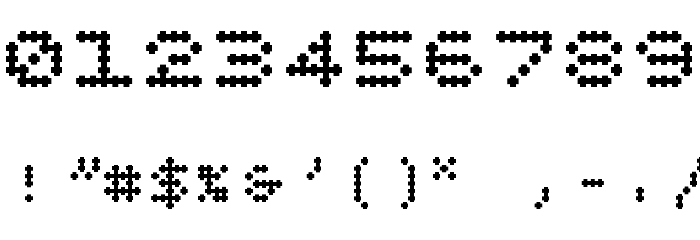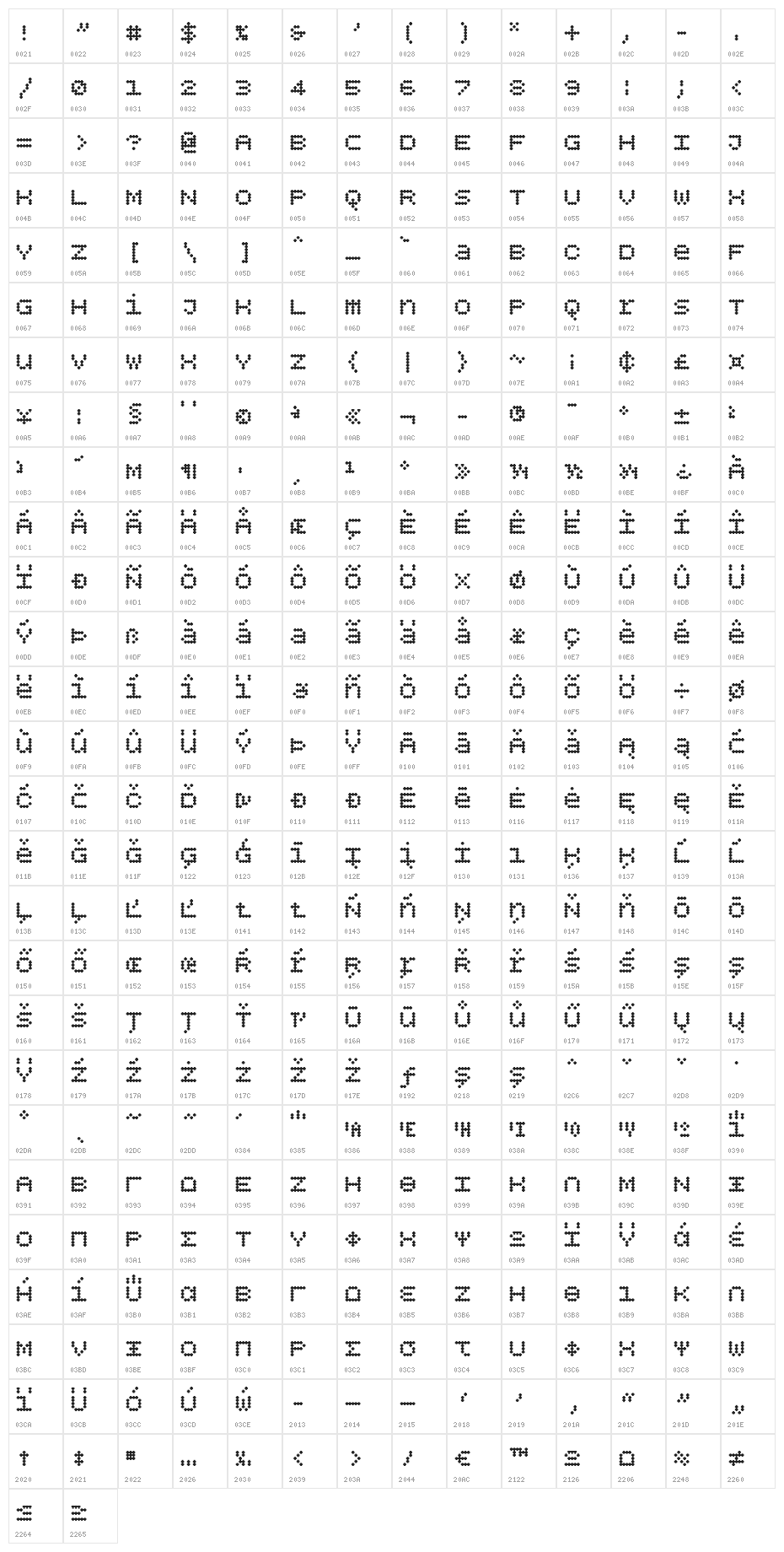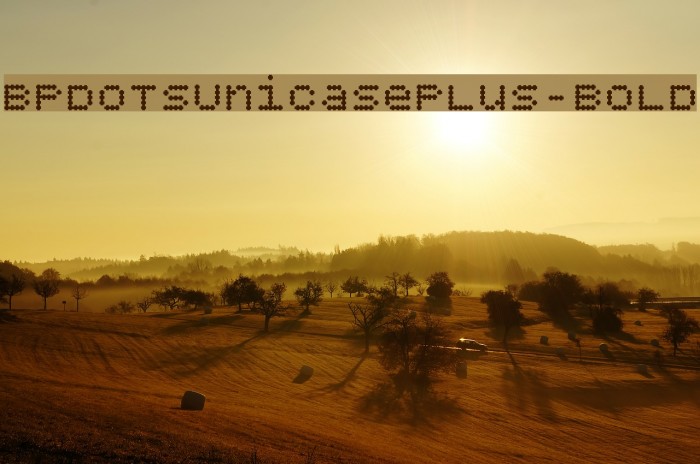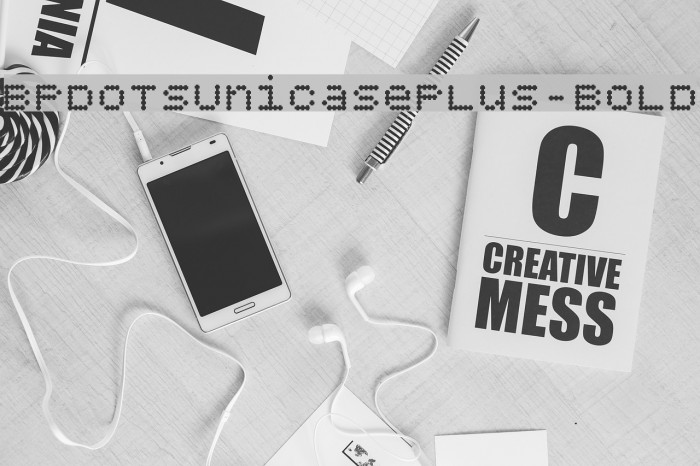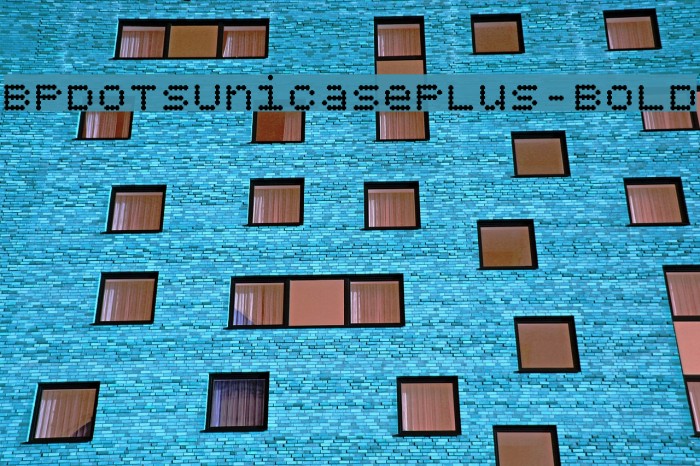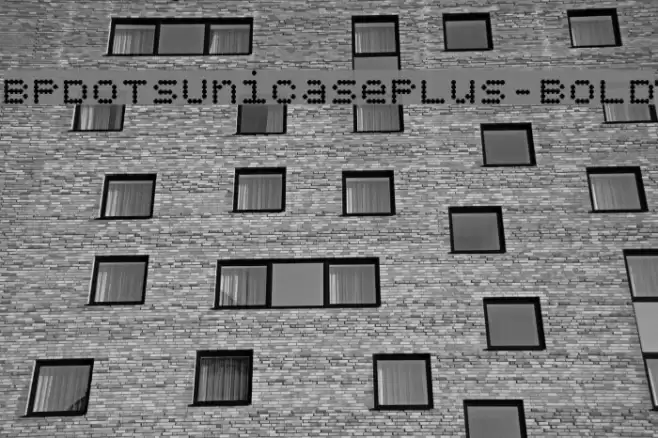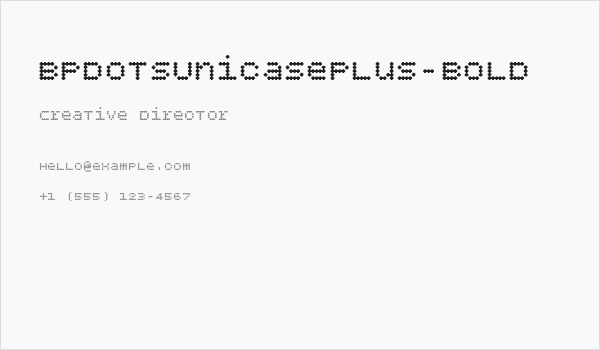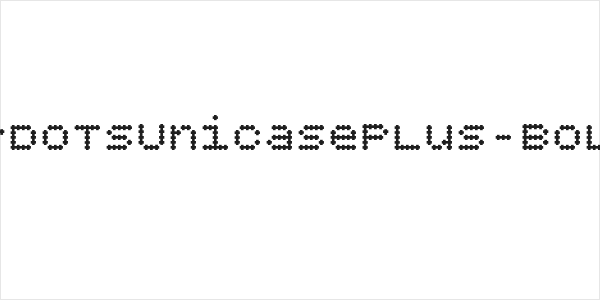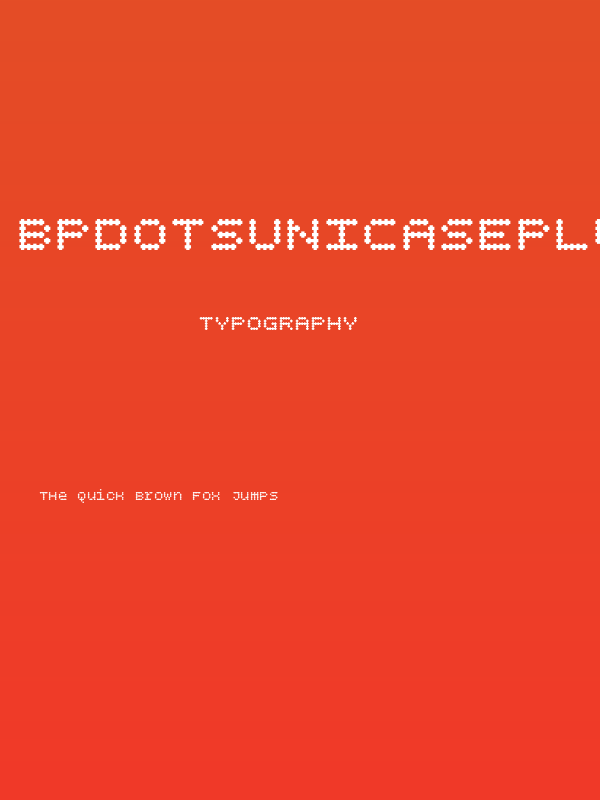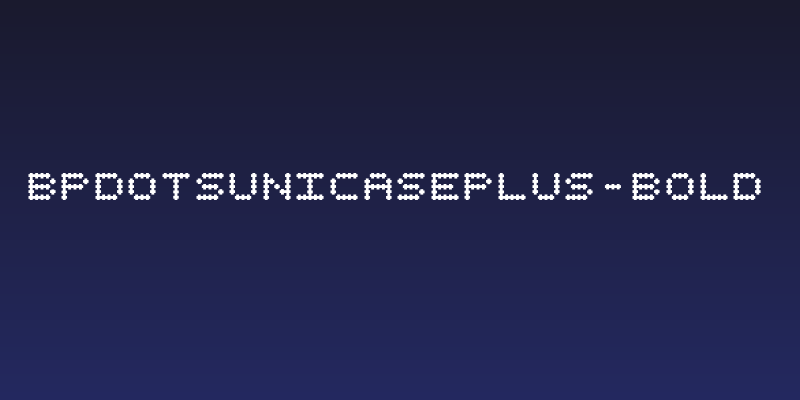
BPdotsUnicasePlus-Bold Font
BPdotsUnicasePlus-Bold Description
This font features a unique dotted design, where each character is constructed from a series of small, evenly spaced dots. The style is consistent across uppercase, lowercase, numbers, and special characters, creating a cohesive and playful appearance. The font has a modern and digital feel, reminiscent of LED displays or pixel art, making it ideal for projects that require a tech-savvy or retro aesthetic. The characters are bold, ensuring visibility and readability even at smaller sizes. The spacing between characters is normal, allowing for clear distinction between each letter and symbol.
| Use Case | Headlines, Logos, Digital displays |
| Proposed Projects | Ideal for digital displays, tech-themed designs, retro gaming graphics, and creative posters. |